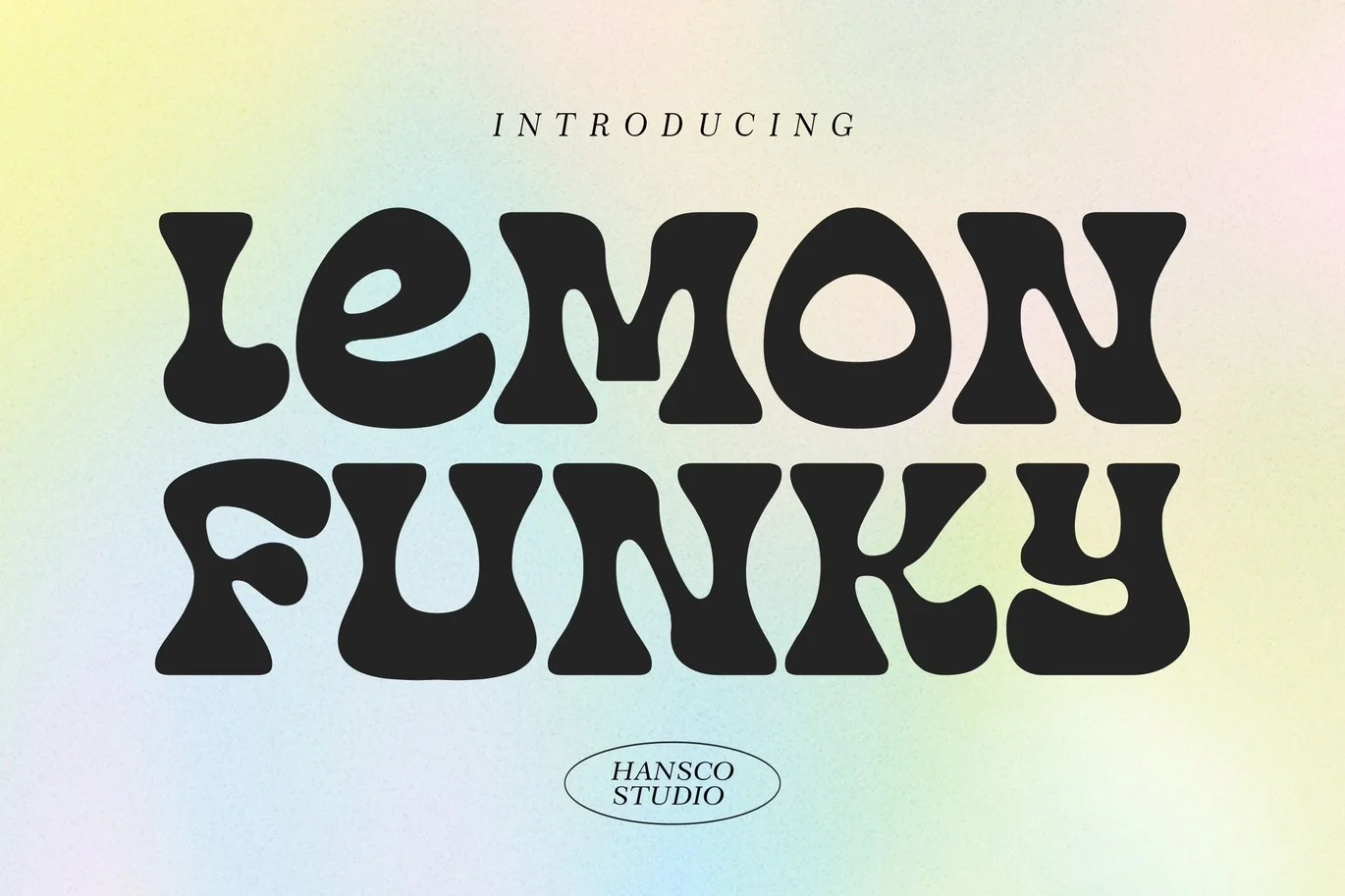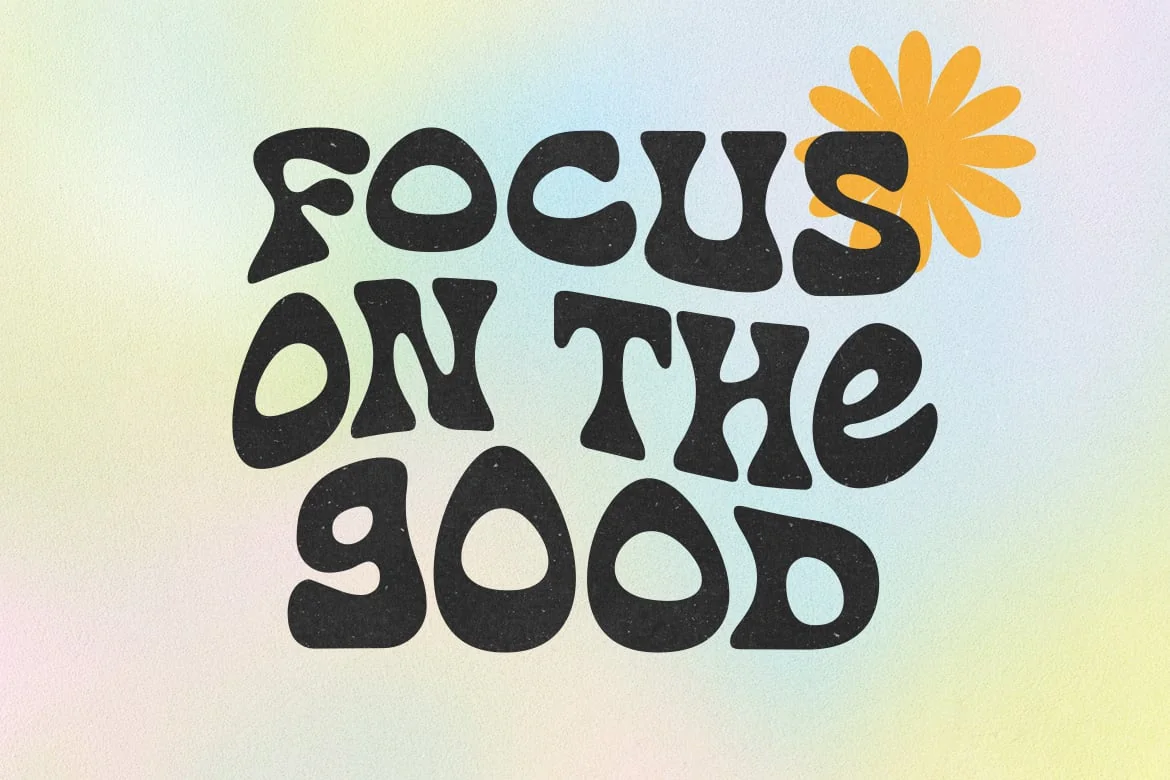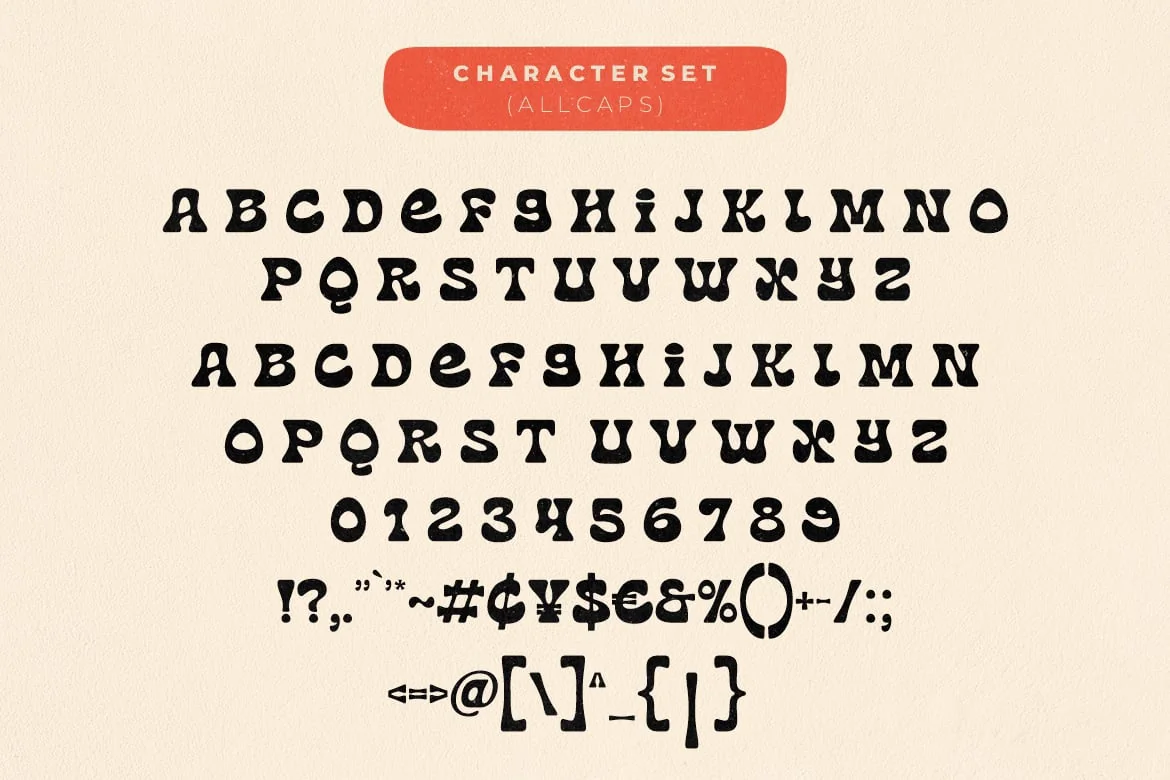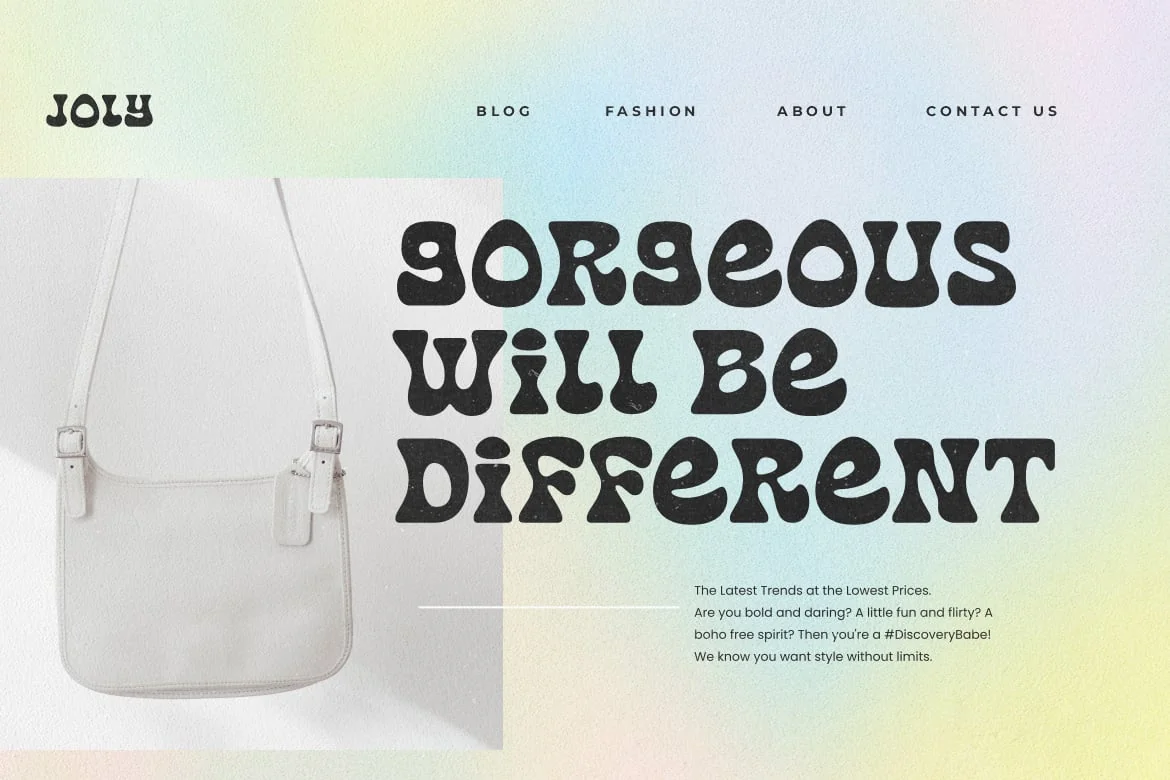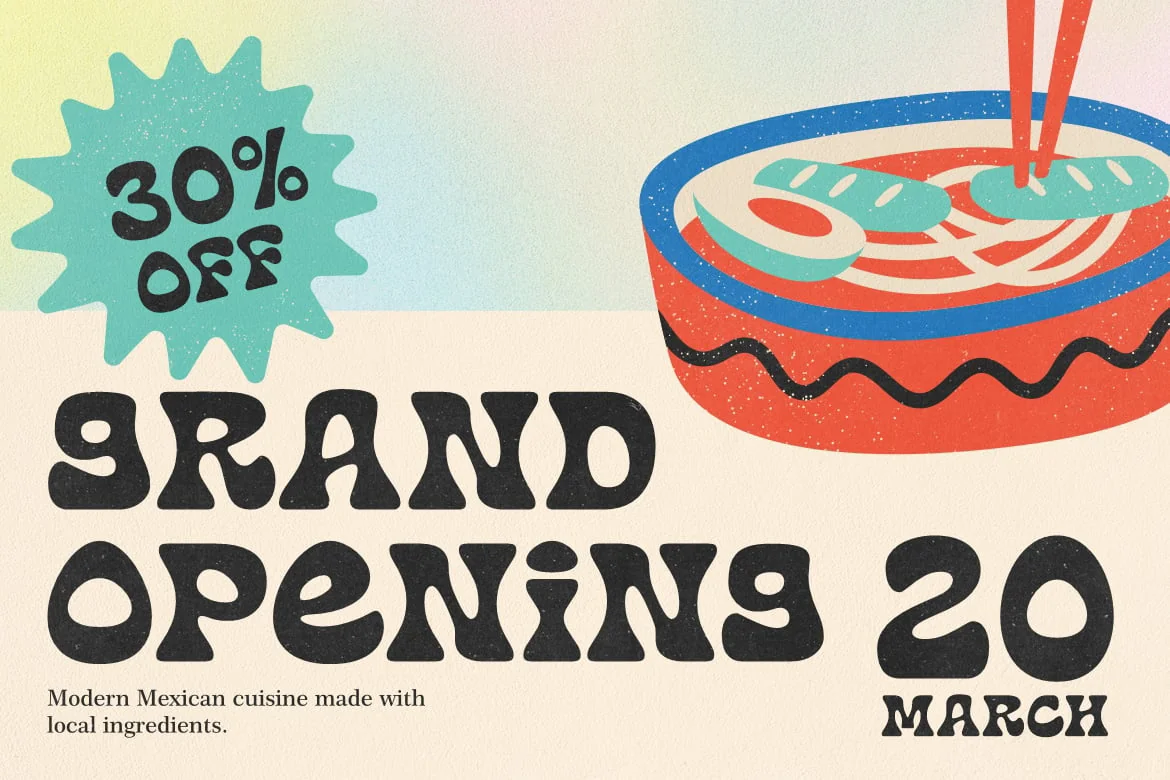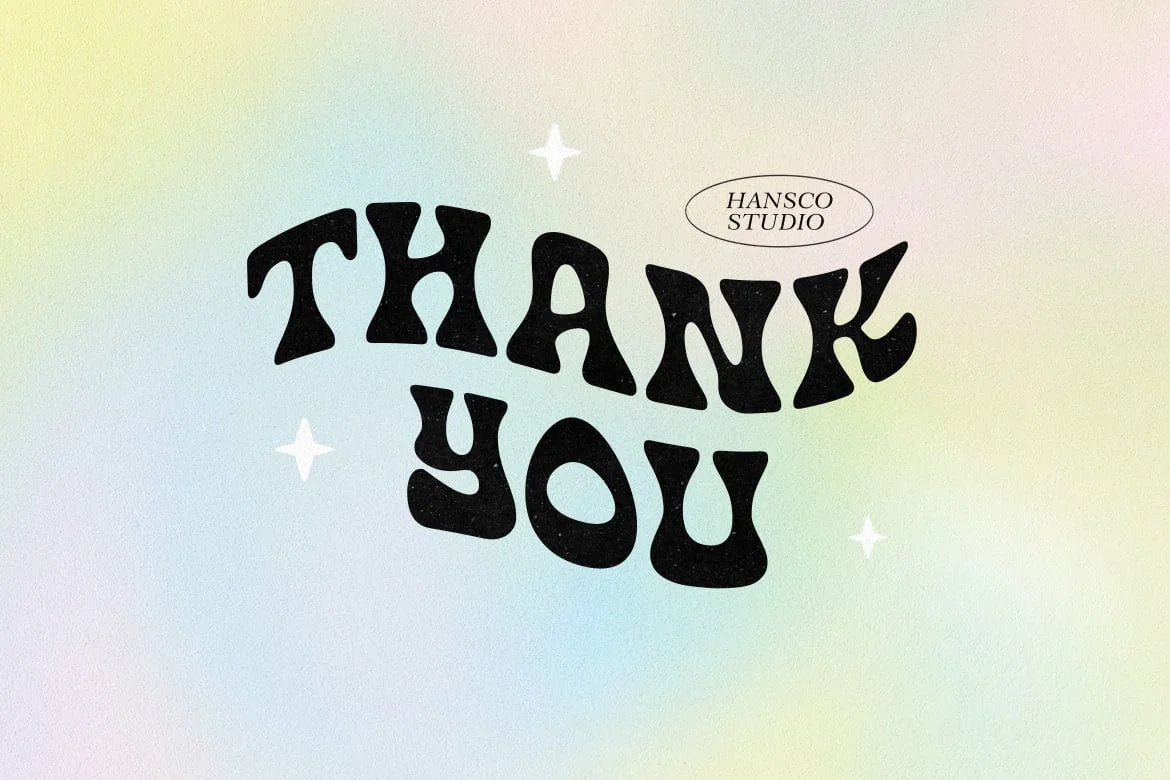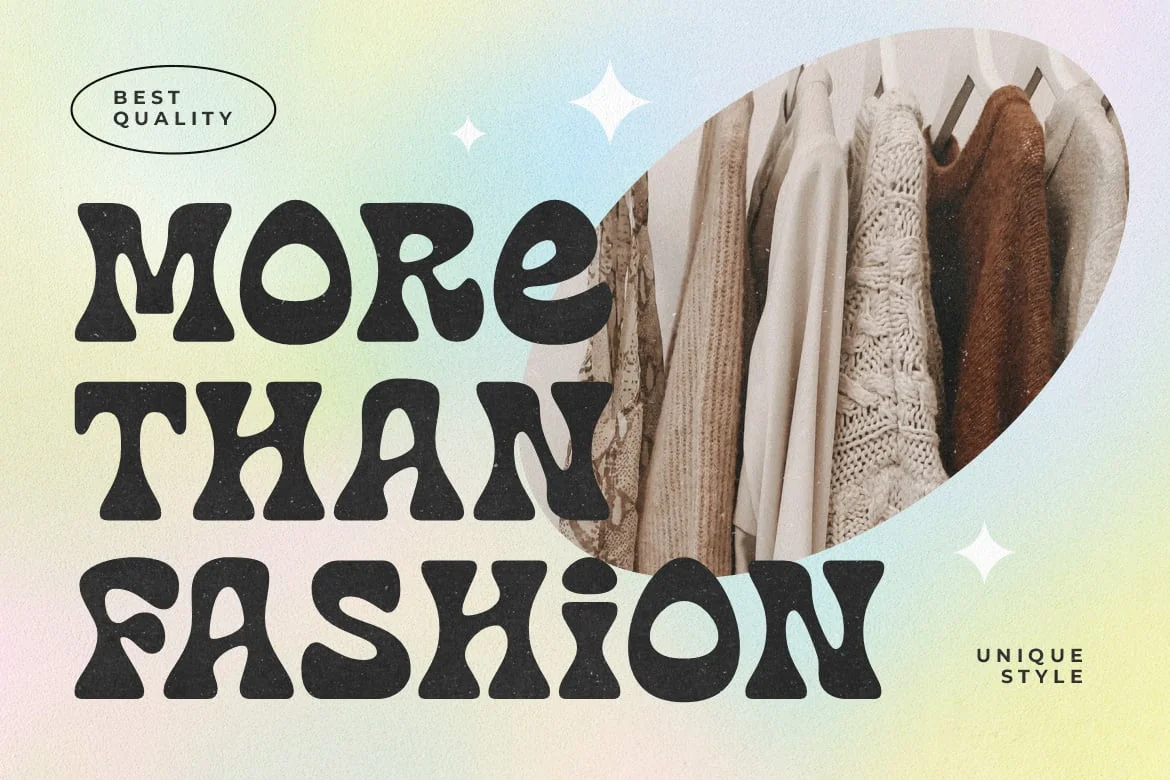
Lemon Funky Font
Lemon Funky Font is a retro psychedelic font style with rounded touch. Equipped with all complete characters ranging from all uppercase letters, numbers, punctuation marks and multi-lingual support, this font is ready to be used in any project. Very suitable for logotype, Stickers, Packaging design, Cricut Project, headlines, brand identity, posters, magazines, books, YouTube, Instagram, websites or any of your creative design projects. Use this Lemon Funky font to add that special modern retro psychedelic touch to any design idea you can think of!
- All Uppercase